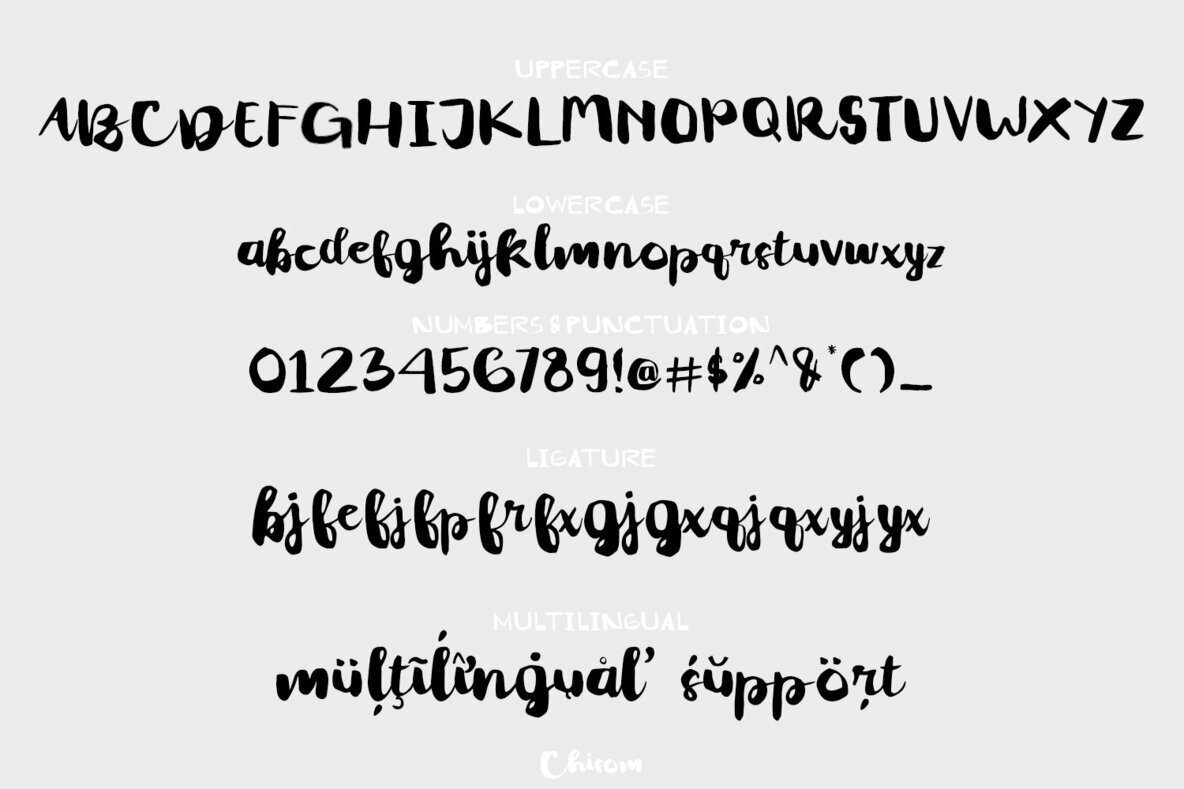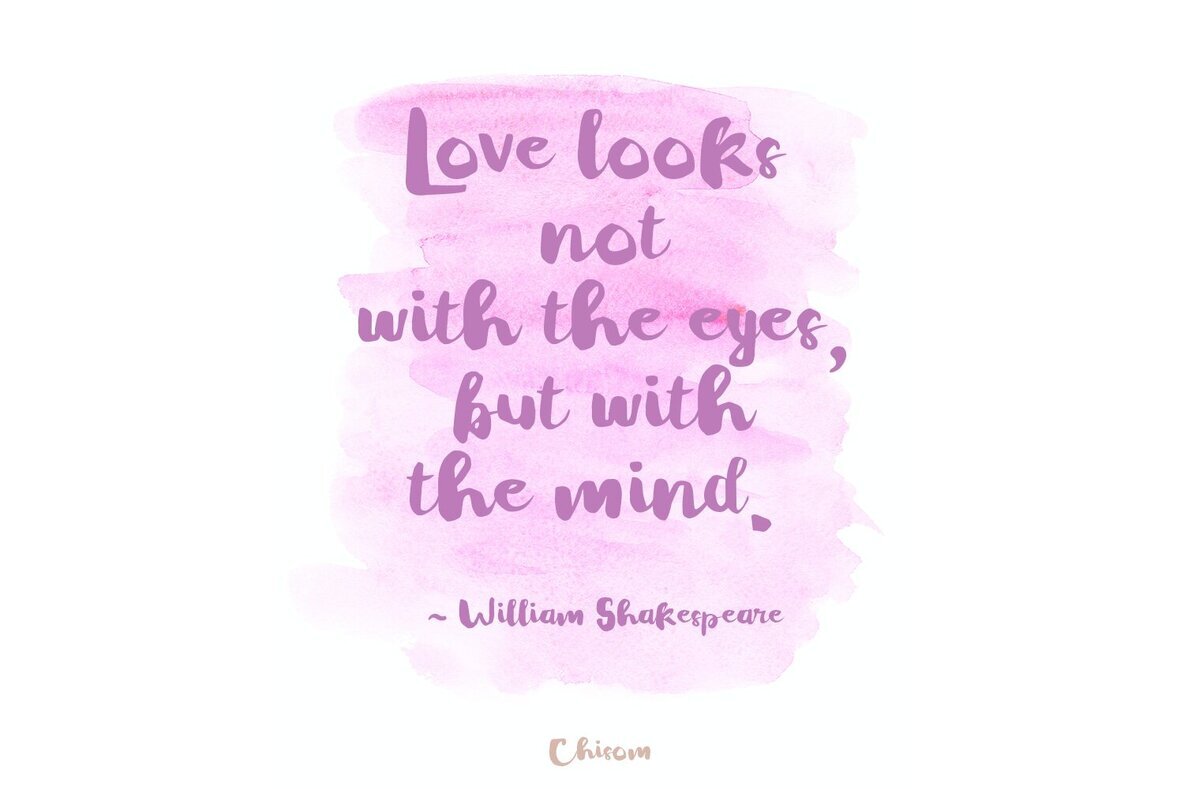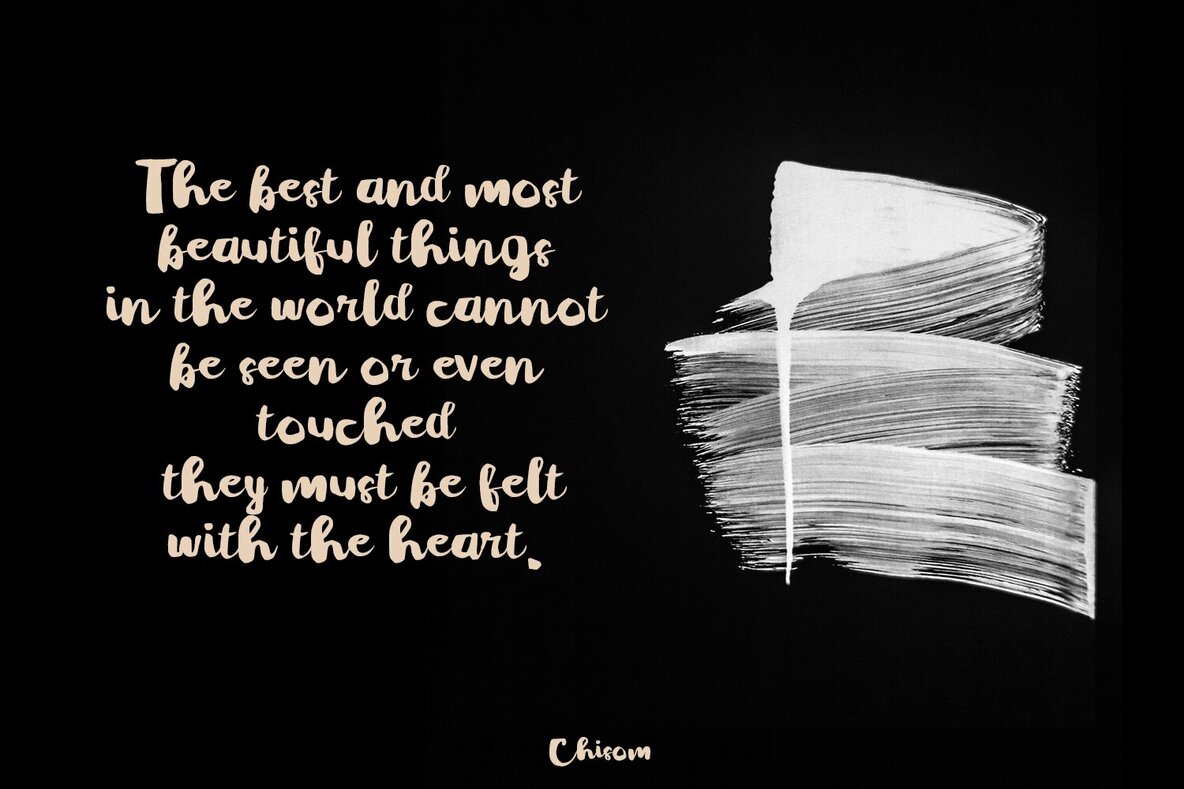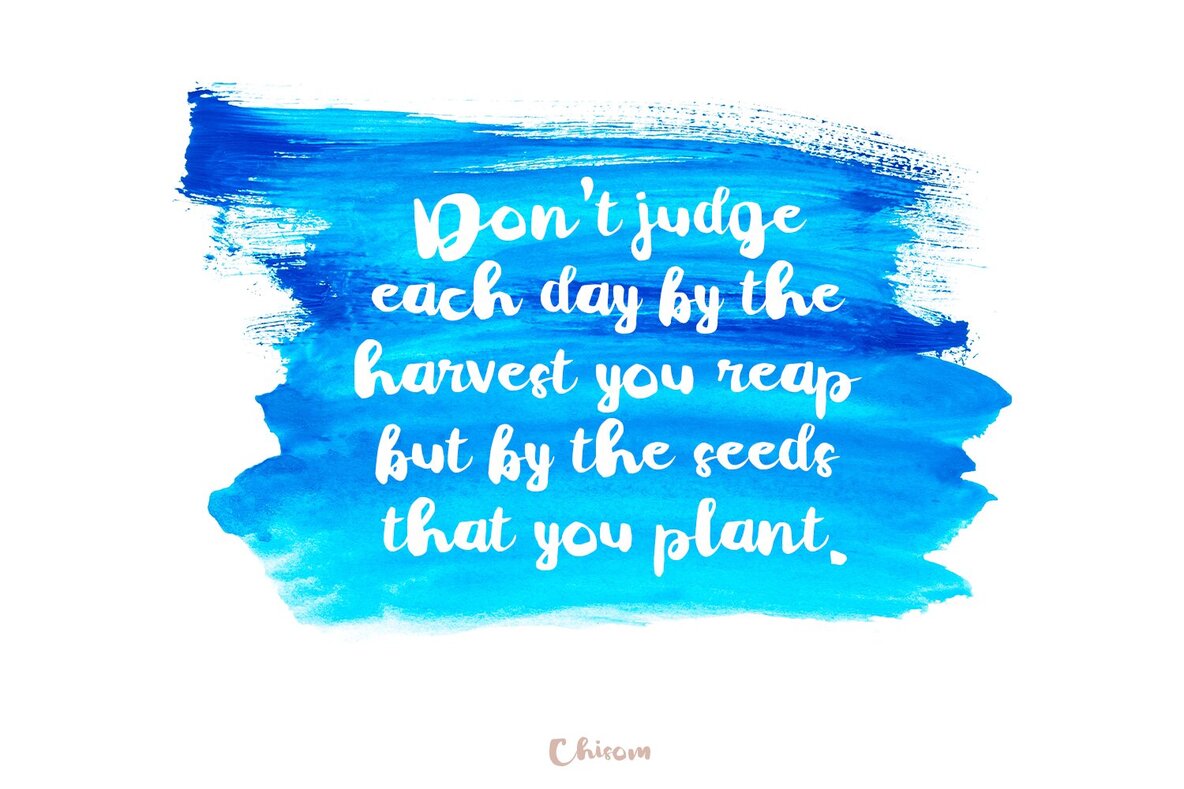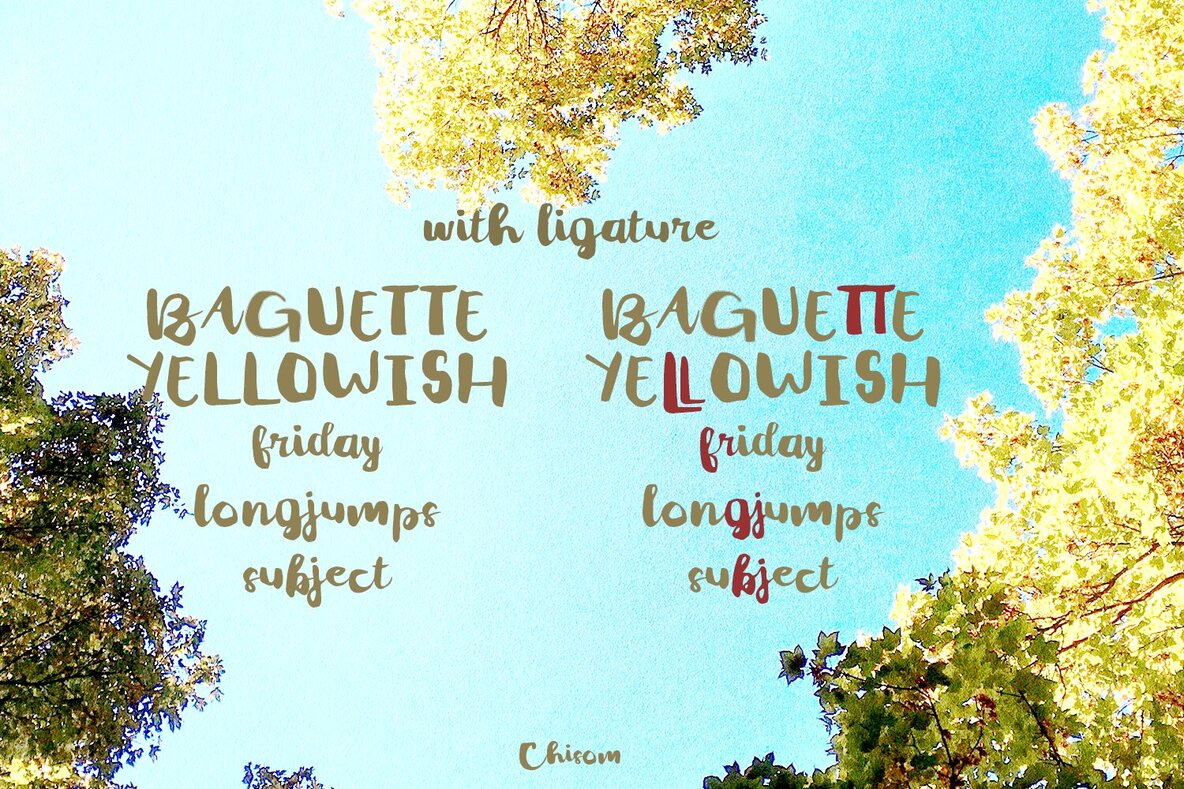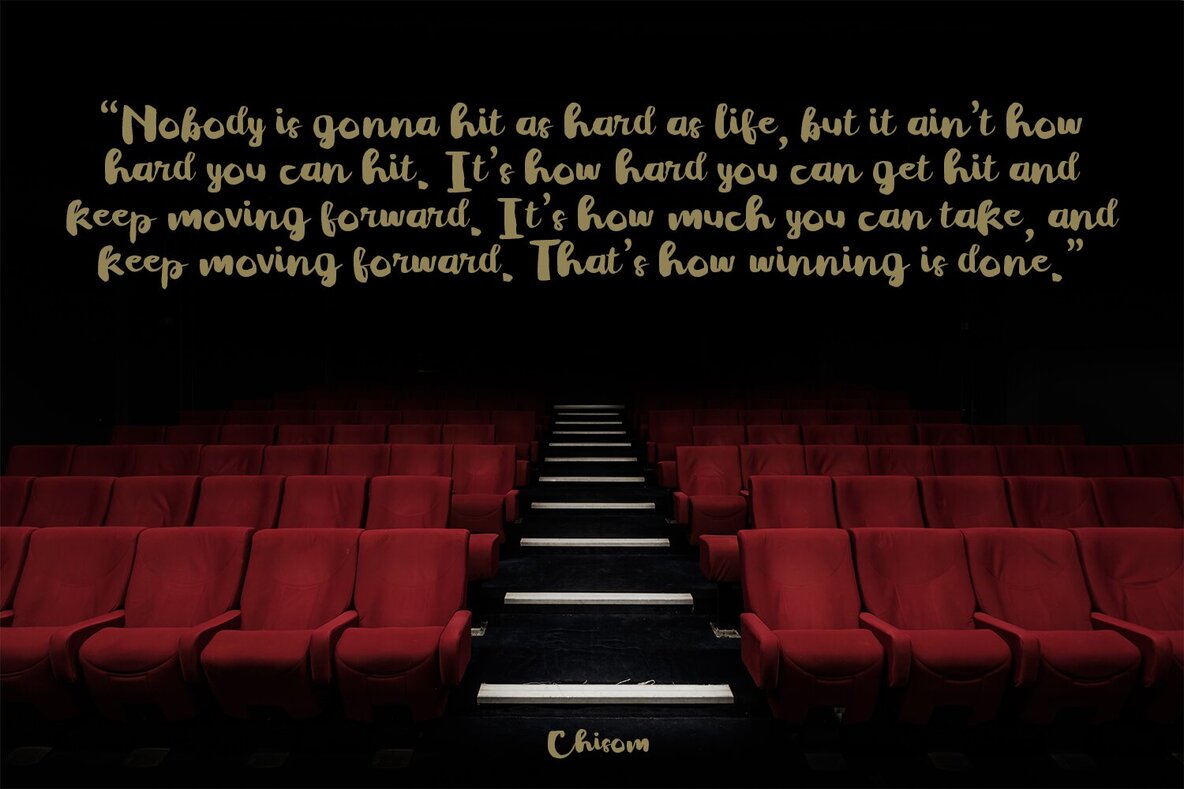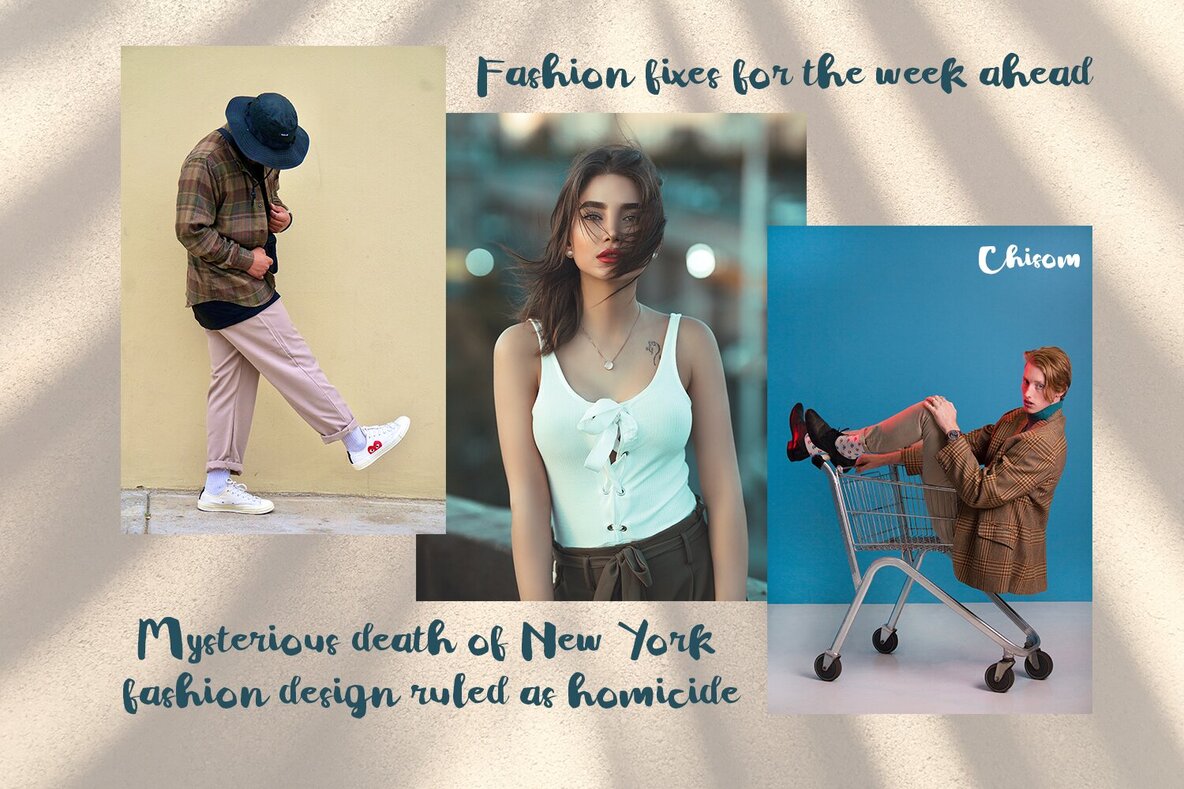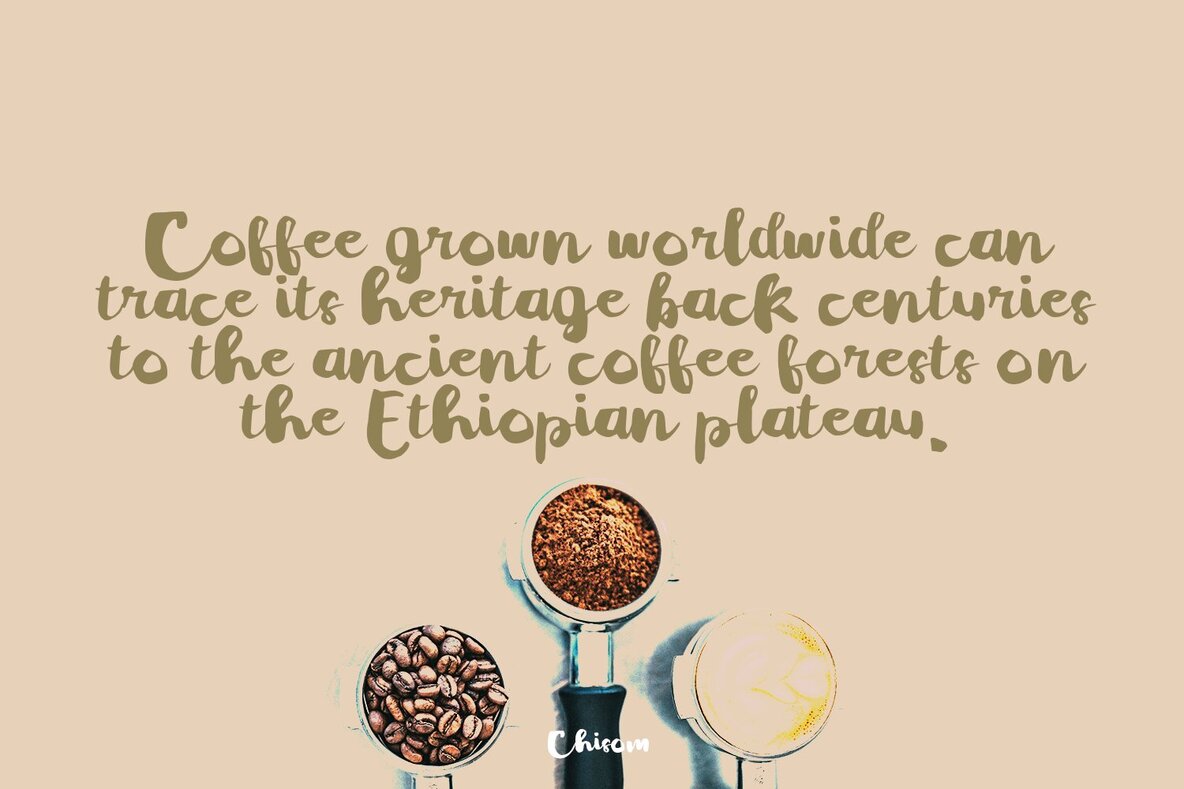
Chisom Font
Chisom Regular
Introducing Chisom, a realistic brush script font that breathes life and authenticity into your design projects. With its natural brushstroke appearance, Chisom is the perfect addition to any creative endeavor, effortlessly enhancing the overall look and feel.
Whether you're working on branding, packaging, invitations, social media graphics, or anything in between, Chisom brings a touch of artistic elegance that captures the essence of your vision. Its versatile and organic style makes it an excellent choice for a wide range of design applications.